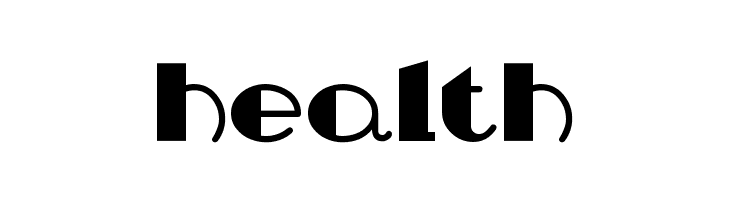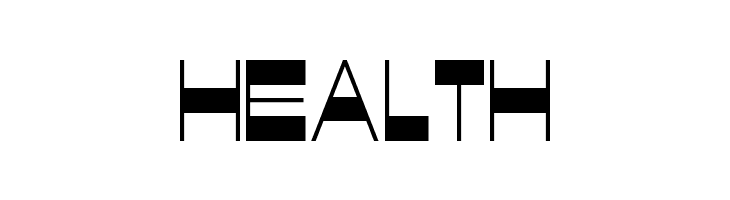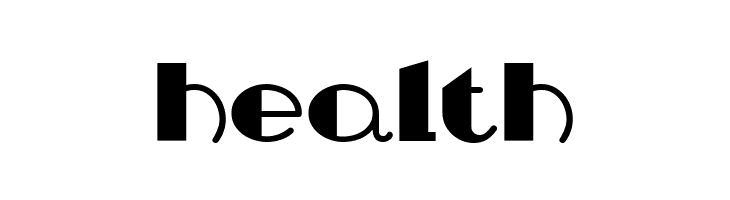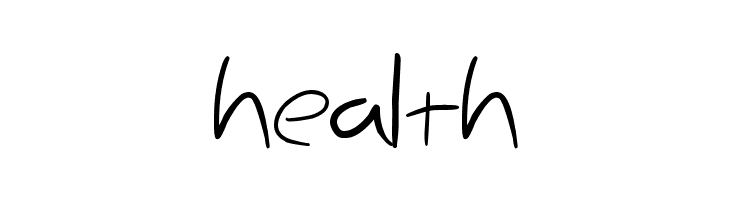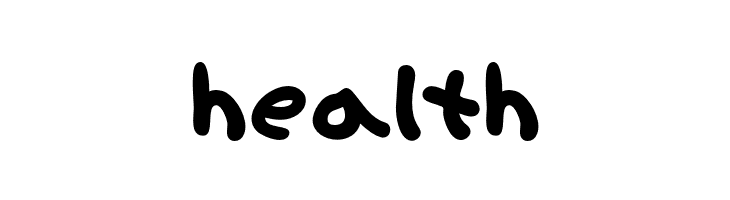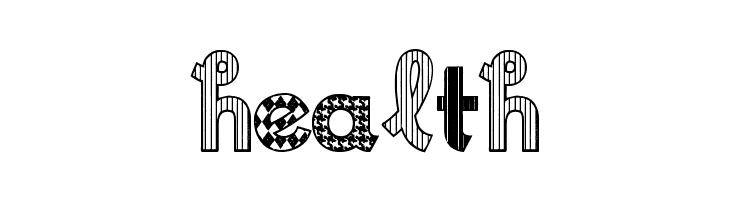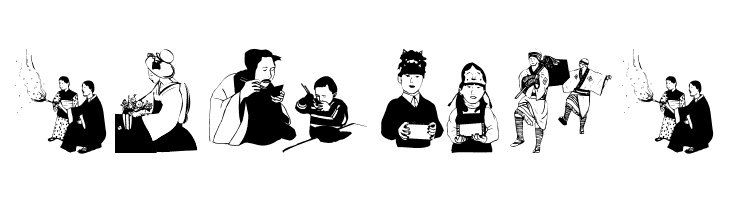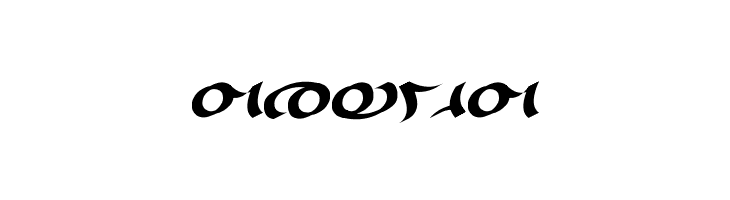
• Nightcap NF
• NightcapNF
A bold, geometric font with modern and artistic letterforms.
• Nightmare AOE
A bold, jagged font with a horror-themed, dynamic style.
• Nihilschiz-Handwriting
• ninifont regular
• Nip And Tuck NF
A bold, decorative font with geometric and playful elements.
• NipAndTuckNF
A bold, decorative font with geometric and playful elements.
• Nipponia
Illustrative font using Japanese cultural scenes for each character.
• Nirichaen [Ninety]
A decorative, calligraphic-style font with elegant curves and dynamic strokes.
• No Mystery
A playful, decorative font with patterned characters ideal for creative projects.